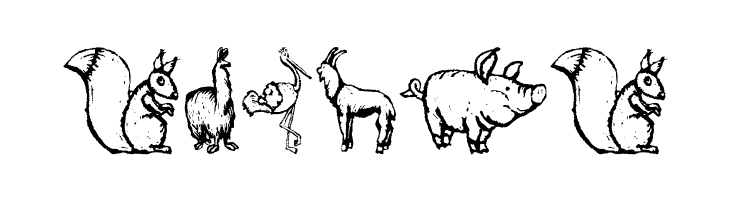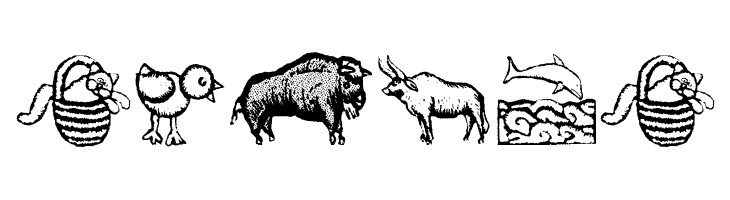
• ZooCages
A playful and decorative set of animal illustrations within cubes.
• Zook
• ZoologicalGardenOne
Hand-drawn animal doodle font with a playful, illustrative style.
• ZoologicalGardenThree
A playful, hand-drawn animal illustration font perfect for creative projects.
• ZooloVectoriA
Animal silhouette font with each character as a distinct animal shape.